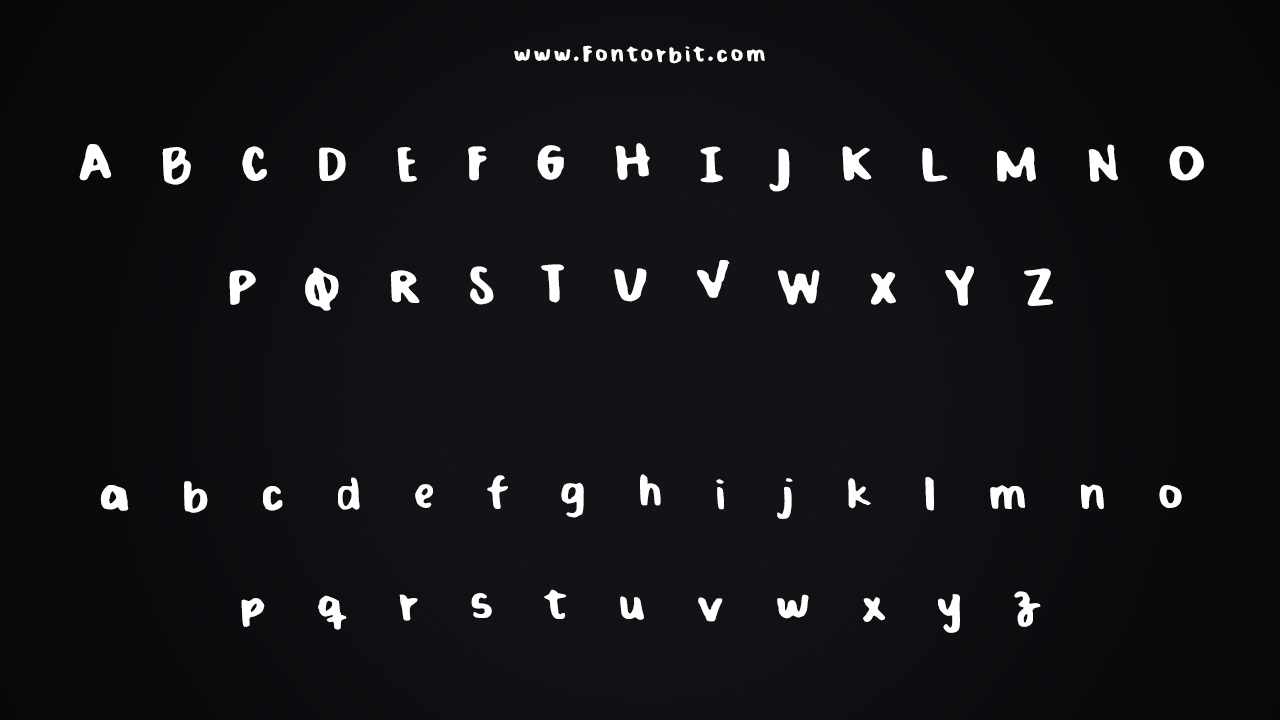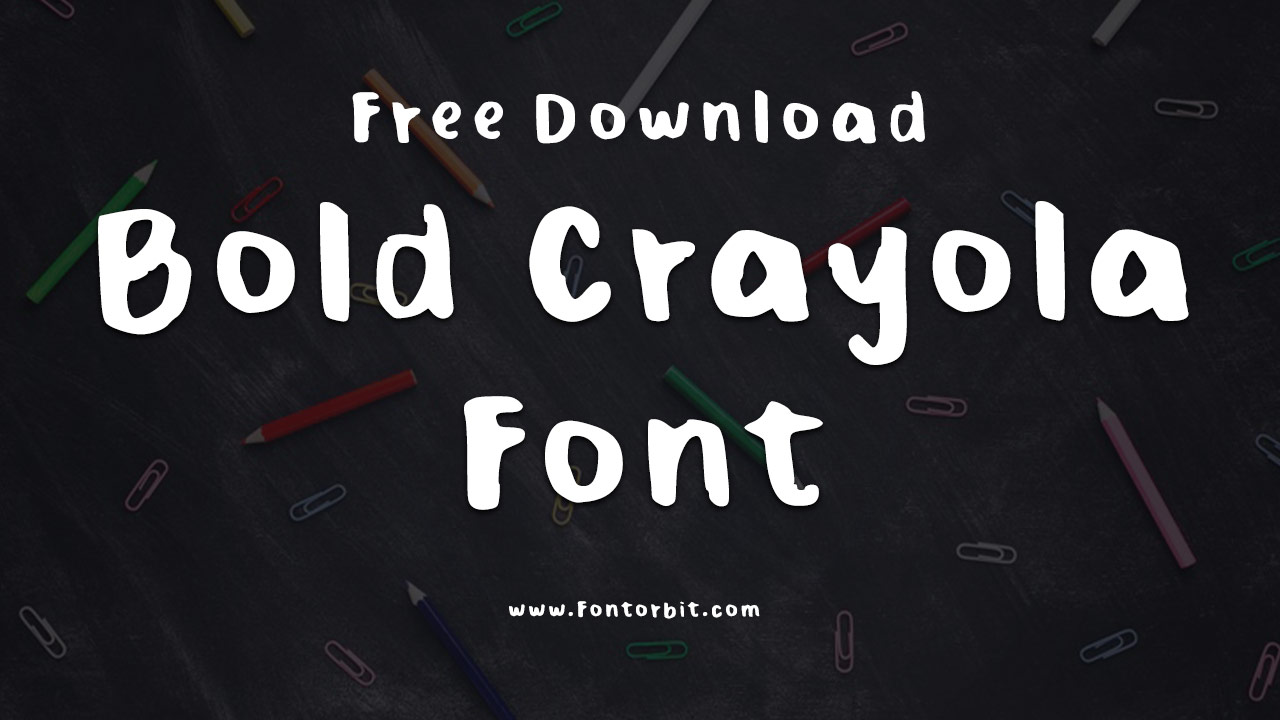
The Bold Crayola font is a vibrant and playful typeface designed by Valentina Calderón. Designed to evoke a sense of fun and creativity, this font adds a whimsical touch to projects aimed at children or any context where a playful style is desired. Released under the Crayola brand, it captures the essence of childhood imagination and belongs to the Crayola font family.
Bold Crayola Family Includes
The Bold Crayola family features bold, colourful, and crayon-like strokes that make it stand out in various design contexts. Here is the font family list:
Bold Crayola Regular
Notable Uses Of Bold Crayola
Bold Crayola is frequently used in children’s book covers, educational materials, playful websites, and party invitations. Its vibrant and chunky style makes it ideal for designs that need to convey a sense of fun and creativity.
This font shines in contexts that need a light-hearted and friendly appearance. It works especially well for:
- Children’s educational content
- Birthday invitations and party decorations
- Playful branding for kids’ products
- Creative projects that need a touch of whimsy
Bold Crayola is a fantastic choice for any design project that aims to capture the essence of childhood creativity and fun. Its bold and whimsical style makes it versatile for various applications, especially those targeted at younger audiences.